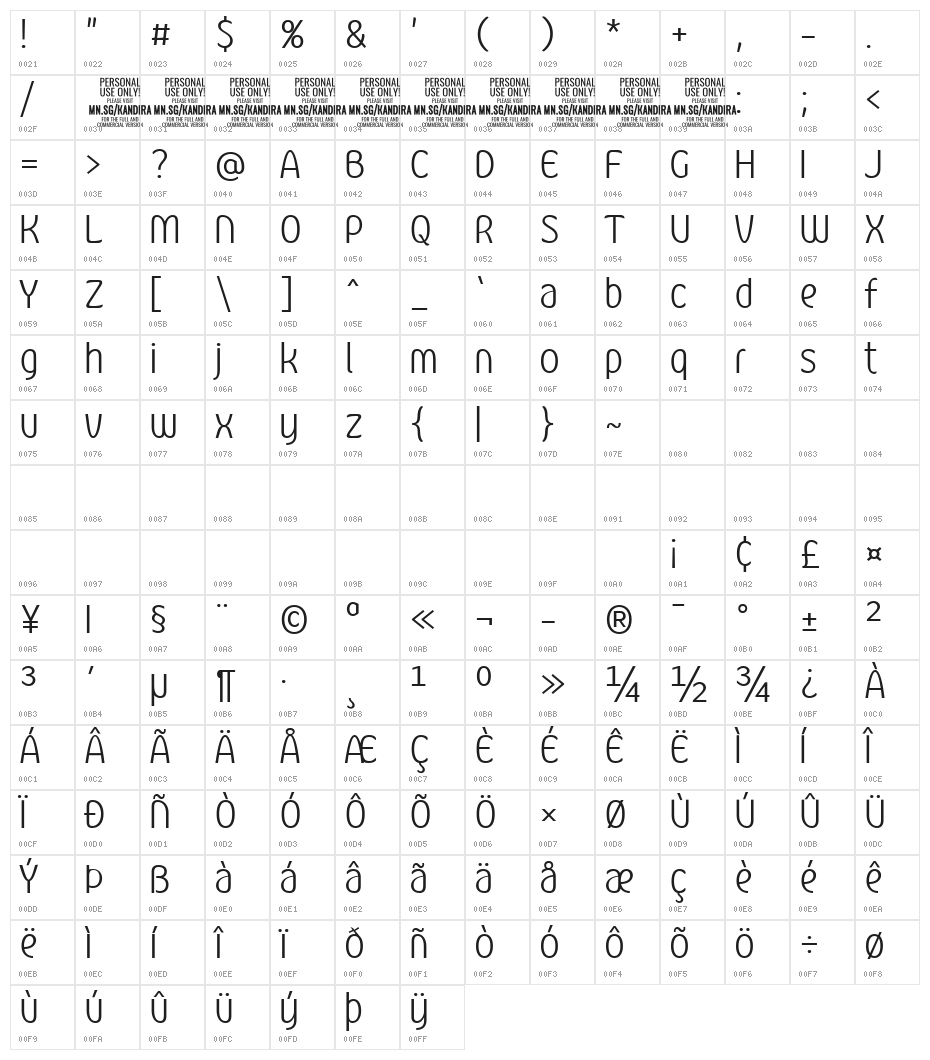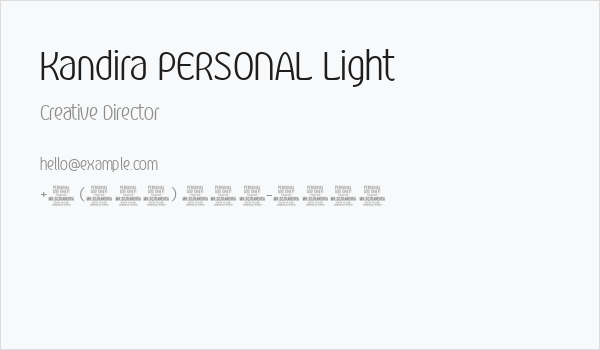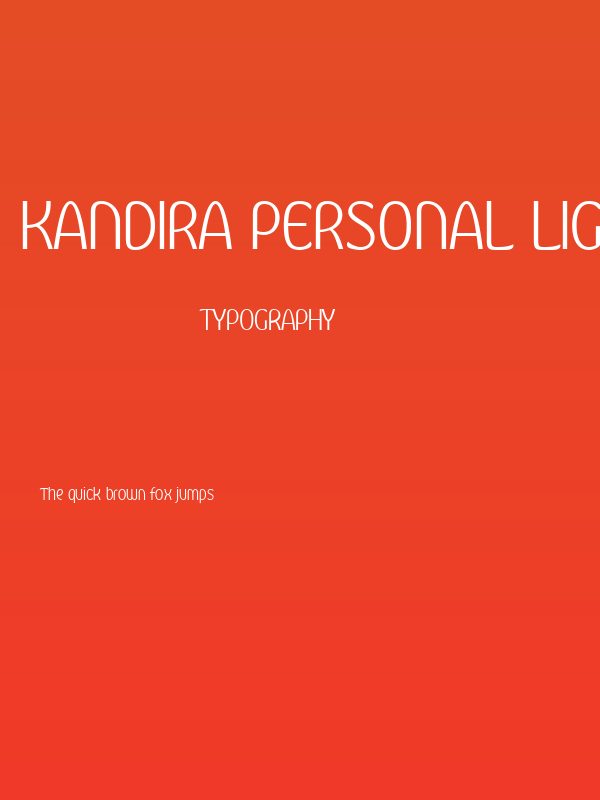
Kandira PERSONAL Light Font
Kandira PERSONAL Light Description
This font features a sleek and modern design with a clean, sans-serif style. The characters are elongated with a slight curvature, giving them a unique and contemporary appearance. The uppercase and lowercase letters maintain a consistent height, contributing to a uniform look. The numerals and special characters are designed to match the overall aesthetic, providing a cohesive feel across all elements. The font's simplicity and elegance make it versatile for various design projects, offering a balance between readability and style.
| Use Case | Headlines, Logos, Web design |
| Proposed Projects | Ideal for branding, advertising, web design, and modern editorial layouts. |